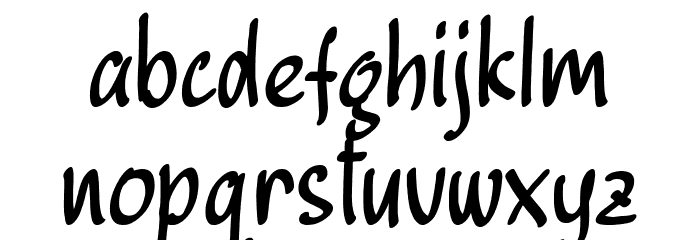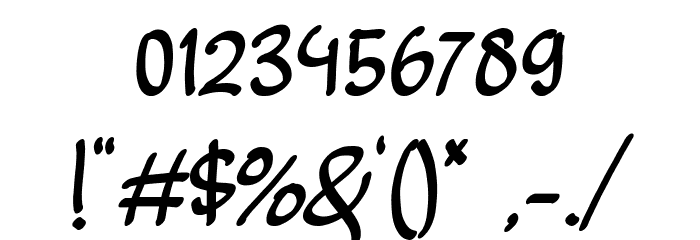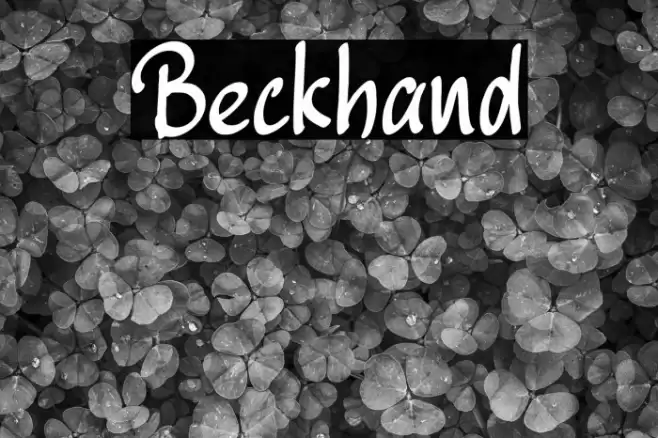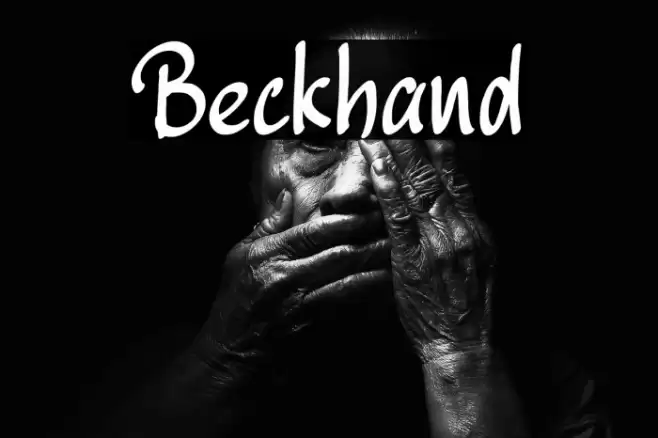
Beckhand Font
This font exudes a casual and artistic flair, characterized by its handwritten style that mimics the fluidity and spontaneity of cursive script. The letters are slightly slanted, with a consistent stroke width that gives it a balanced and harmonious appearance. The uppercase letters are bold and prominent, while the lowercase letters maintain a smooth and connected flow, enhancing the overall legibility. The numerals and special characters are crafted with the same attention to detail, ensuring uniformity across all glyphs. This font is ideal for projects that require a personal touch, such as invitations, greeting cards, or creative branding.
A casual, handwritten script font with a smooth, connected flow.
- Proposed Projects: Ideal for invitations, greeting cards, creative branding, and personal projects.
- Overall Style: Casual, Artistic
- Use Case: Headlines, Logos, Personal projects